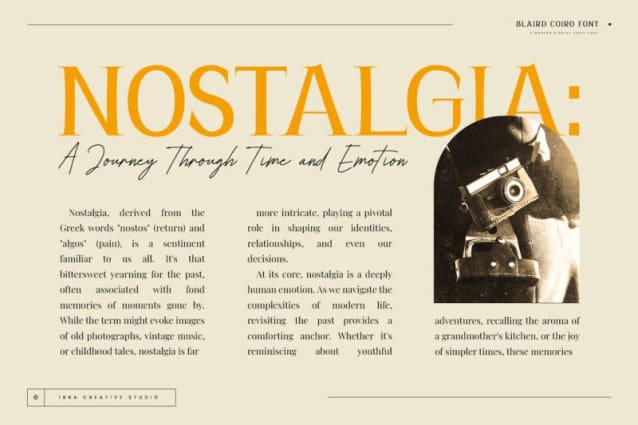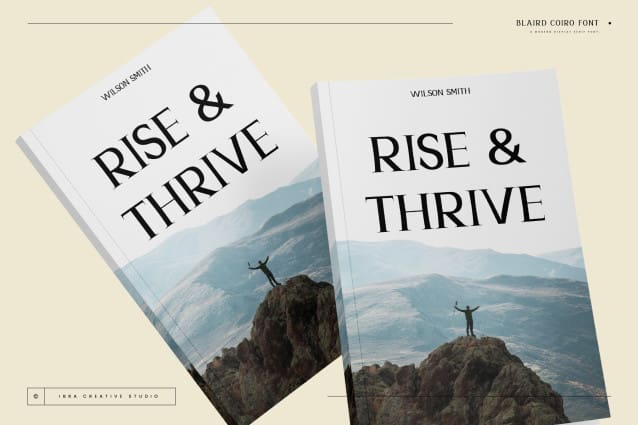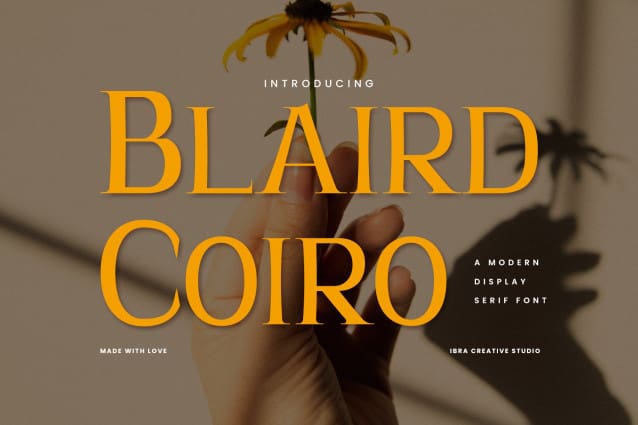
Blaird Coiro Font
Blaird Coiro Font, a contemporary display serif typeface, seamlessly marries timeless elegance with a distinct modern aesthetic. Characterized by its clean lines, balanced proportions, and subtle geometric nuances, Blaird Coiro is designed to command attention in both digital and print mediums. The typeface exudes sophistication, making it an ideal choice for branding, editorial design, and upscale packaging. The carefully crafted serifs and letterforms lend a sense of refinement, while the subtle variations in stroke thickness create a harmonious visual rhythm. Blaird Coiro stands as a versatile typographic choice, embodying a perfect synthesis of classic charm and contemporary design principles, making it well-suited for projects seeking a refined and visually impactful typographic identity.